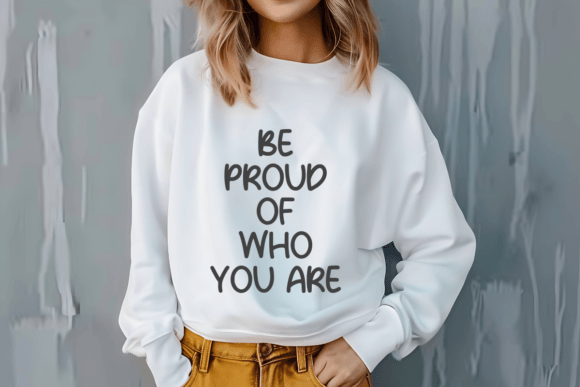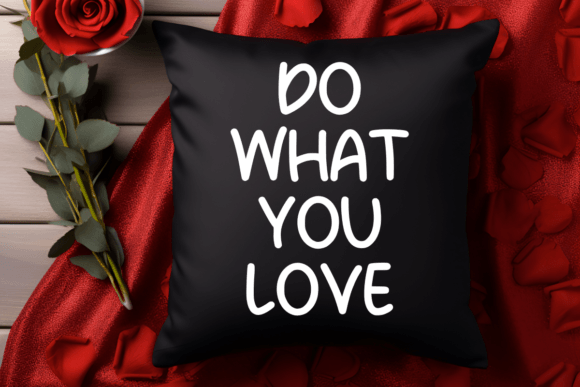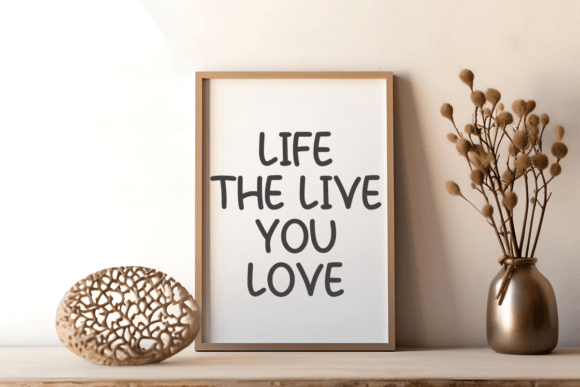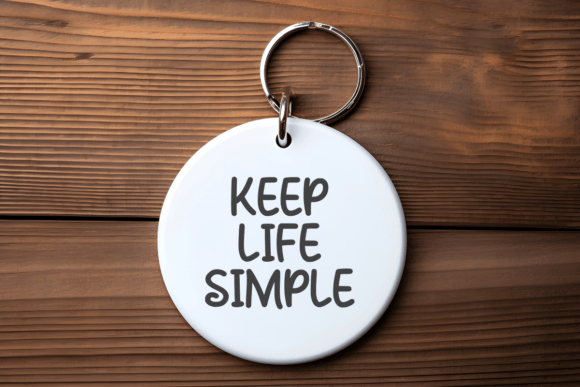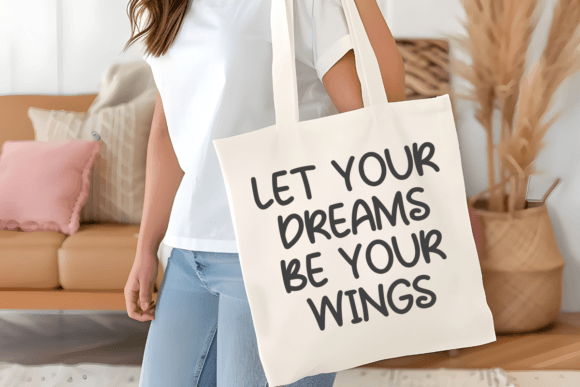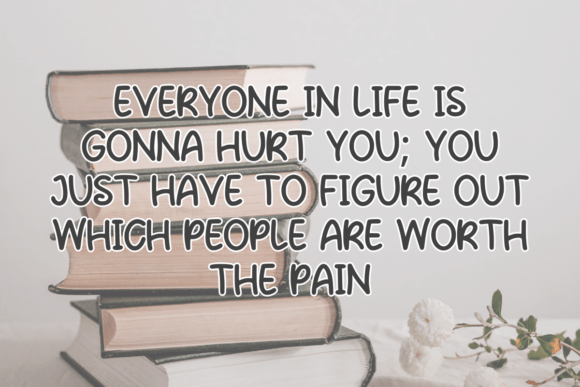
Introduction to Hello There Font
Do you remember that moment when you were brainstorming ideas for a new design project, and you stumbled upon the perfect font that brought everything together? For designers, this is a moment of pure bliss, and it’s what makes the creative process so rewarding. It’s a chance to elevate your design from ordinary to extraordinary, and it’s exactly what the Hello There Font is designed to do.
With its playful, natural handwritten style, the Hello There Font is an incredible asset to any designer’s library. Whether you’re working on a high-quality brochure, a free download for a creative project, or a design resource for a new brand, this font has the potential to take your work to the next level. And the best part? It’s a versatile font that can be used on a transparent background, making it perfect for a wide range of design applications.
Key Features of Hello There Font
- High-quality design: Hello There Font is crafted with precision to provide a professional look for your creative project.
- Transparent background: This font features a transparent background, making it ideal for designs that require a subtle look.
- Size and resolution: The font is available in a range of sizes, from 8 to 72 points, with a resolution of 300 DPI for high-quality printing.
- Unique characteristics: Hello There Font features a unique blend of modern and vintage elements, making it perfect for designs that require a touch of elegance and sophistication.
- Design resource: This font is an excellent addition to any designer’s toolkit, providing a versatile and high-quality design resource for creative projects.
Honest Review: Hello There Font
I recently stumbled upon the Hello There Font, and I must say it’s a great addition to my design resource library. The font is available for a free download, making it a fantastic option for designers on a budget.
One of the standout features of this font is its high quality, which is evident in its clear and crisp lines. The transparent background also allows for seamless integration with various design elements.
- Limited character set, which may not be ideal for complex designs
- May not be suitable for use in small font sizes due to its elegant style
Overall, I’m impressed with the Hello There Font, and I would definitely recommend it to designers working on creative projects. While it may have some limitations, its high quality and transparent background make it a valuable addition to any design resource library.
Tips for Getting the Most Out of Hello There Font
For high-quality results, use the Hello There Font on a transparent background to create a clean and modern design. You can also experiment with different font sizes and colors to add visual interest to your project.
The Hello There Font is a great design resource for creative projects, such as greeting cards, social media graphics, and website headers. Its free download makes it an accessible option for designers of all levels.